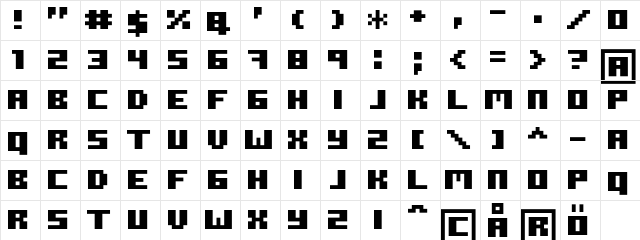
ROTORkeff Bold Free Font
ROTORkeff Bold
ROTORkeff Family
Design Context for ROTORkeff
ROTORkeff is a composed and adaptable typeface that performs quietly and consistently across a wide range of design contexts. Its bold stroke weight gives it real presence on the page.